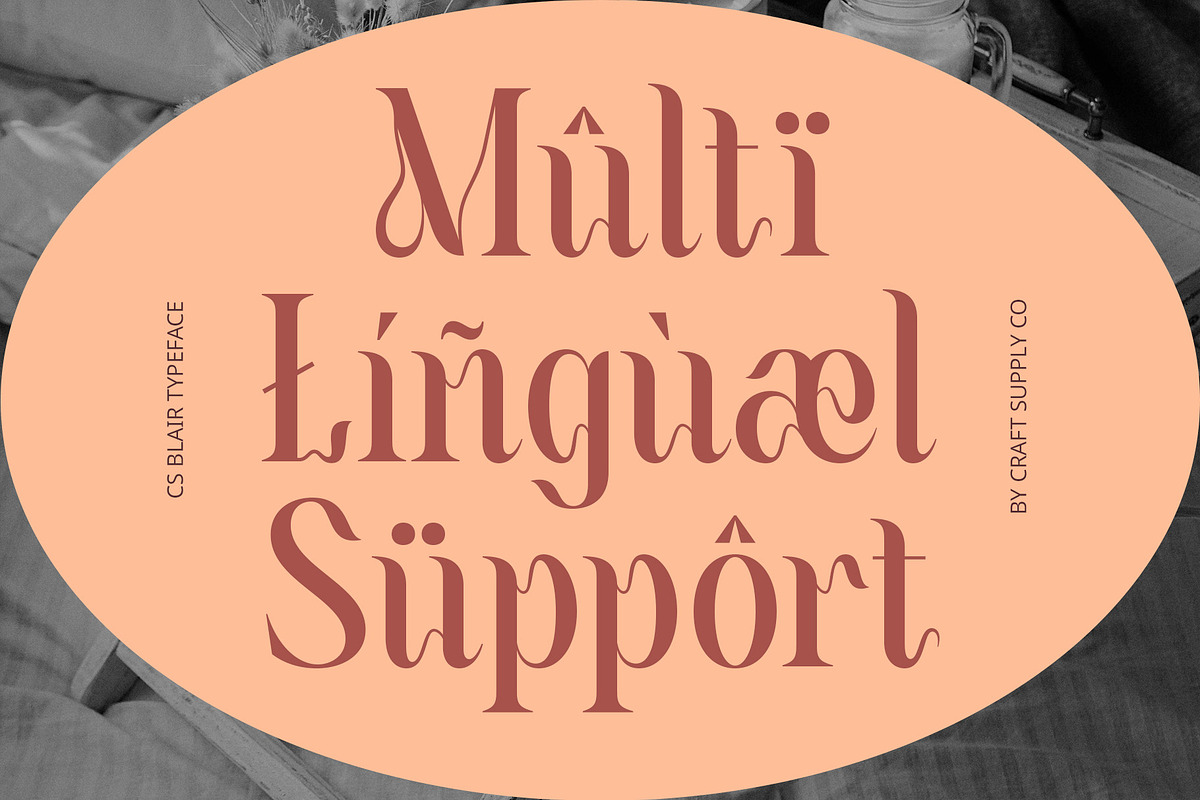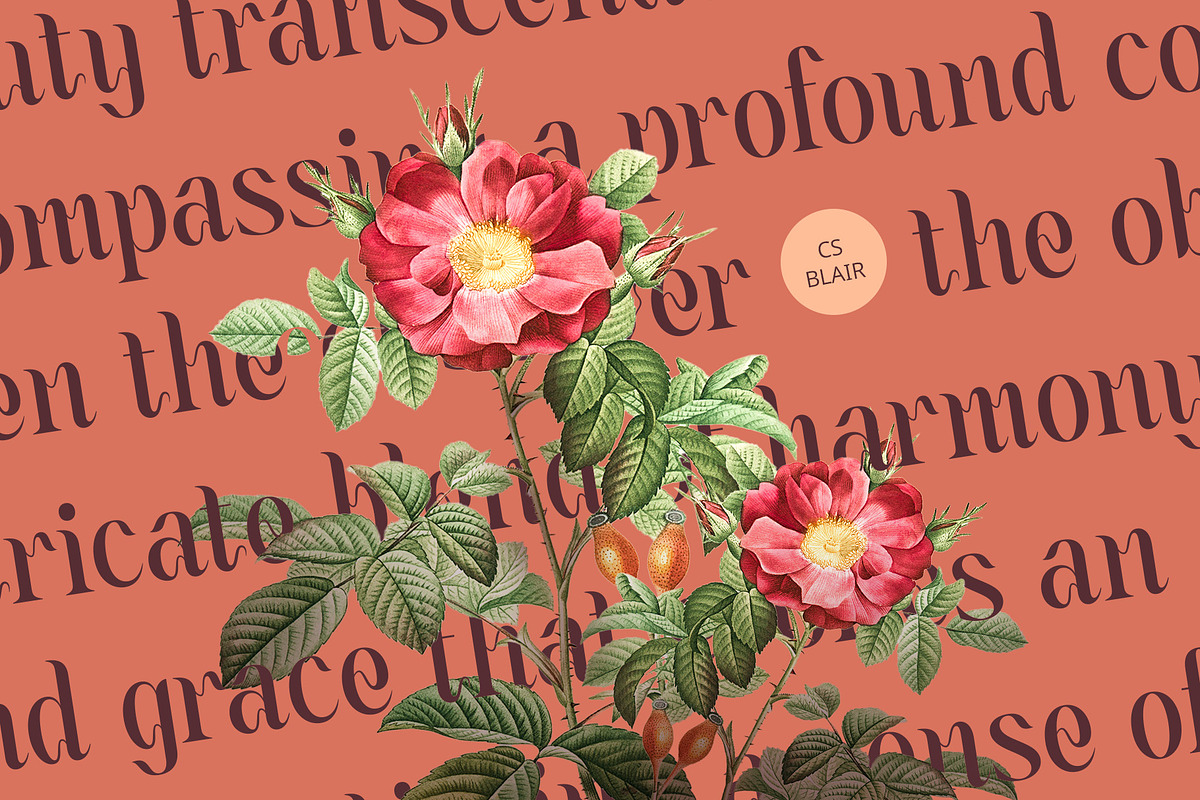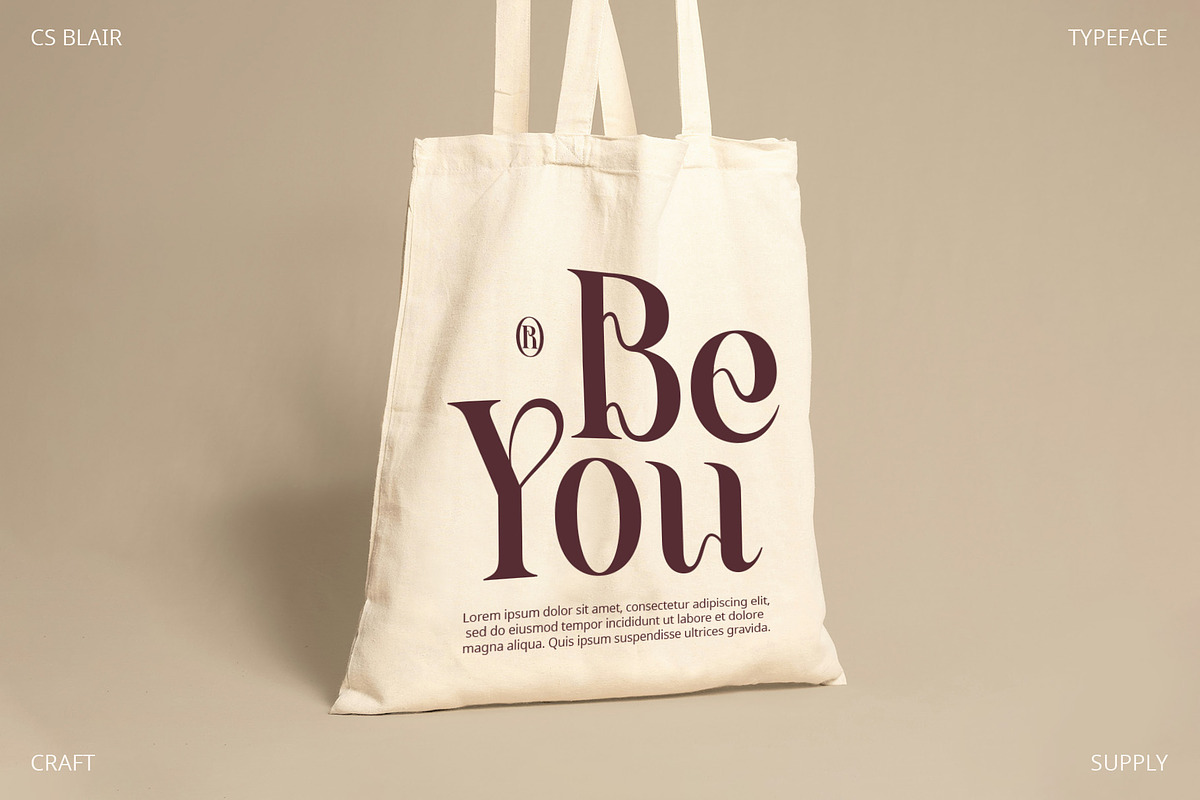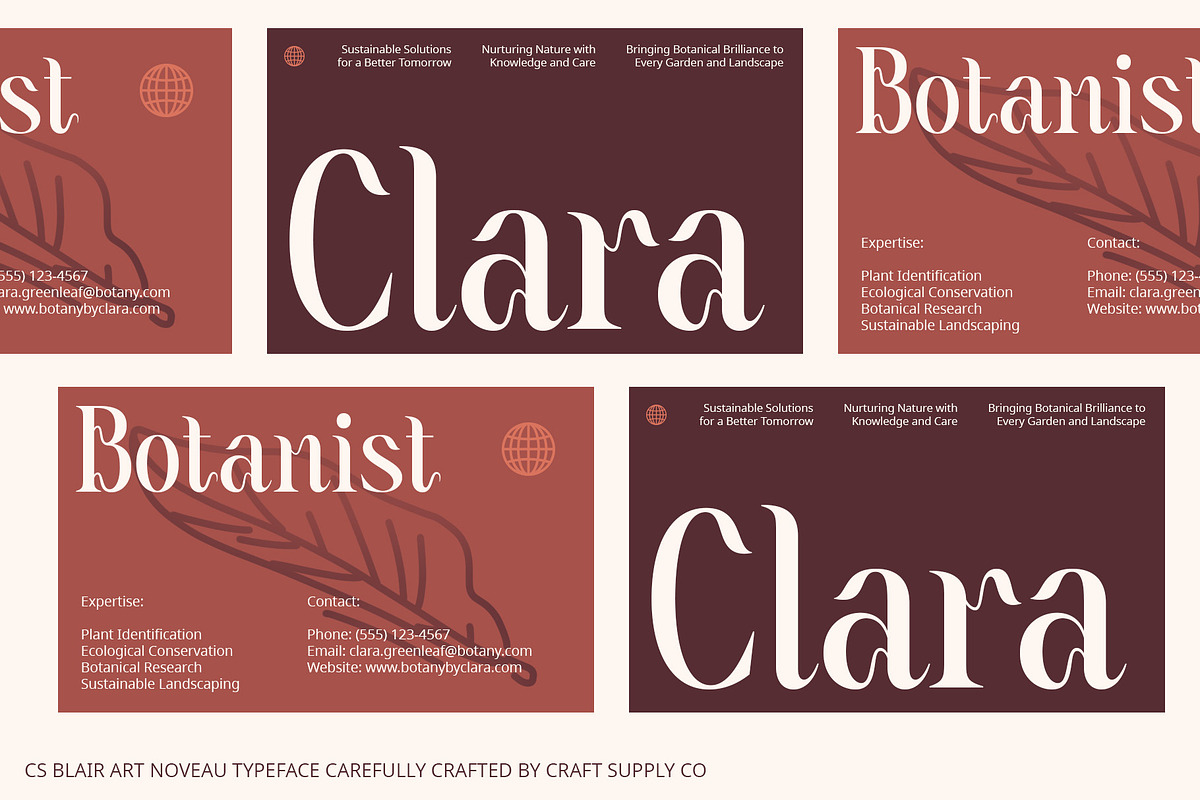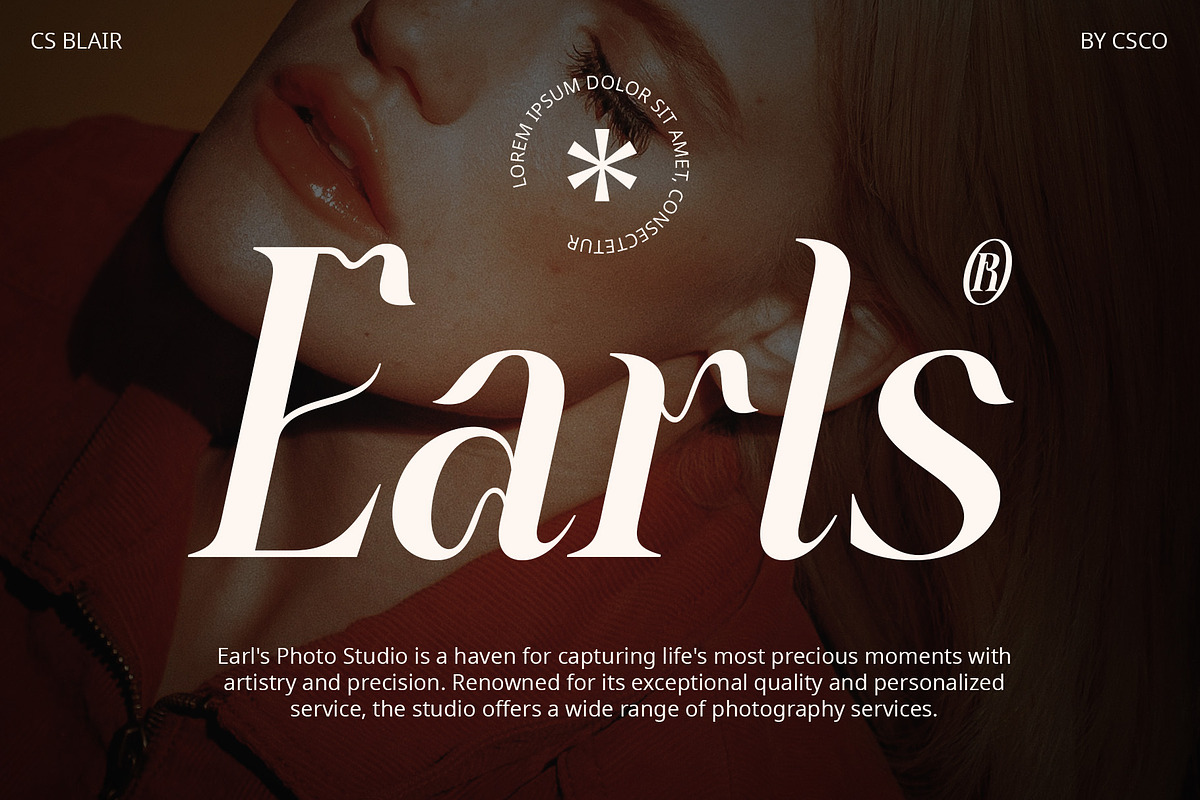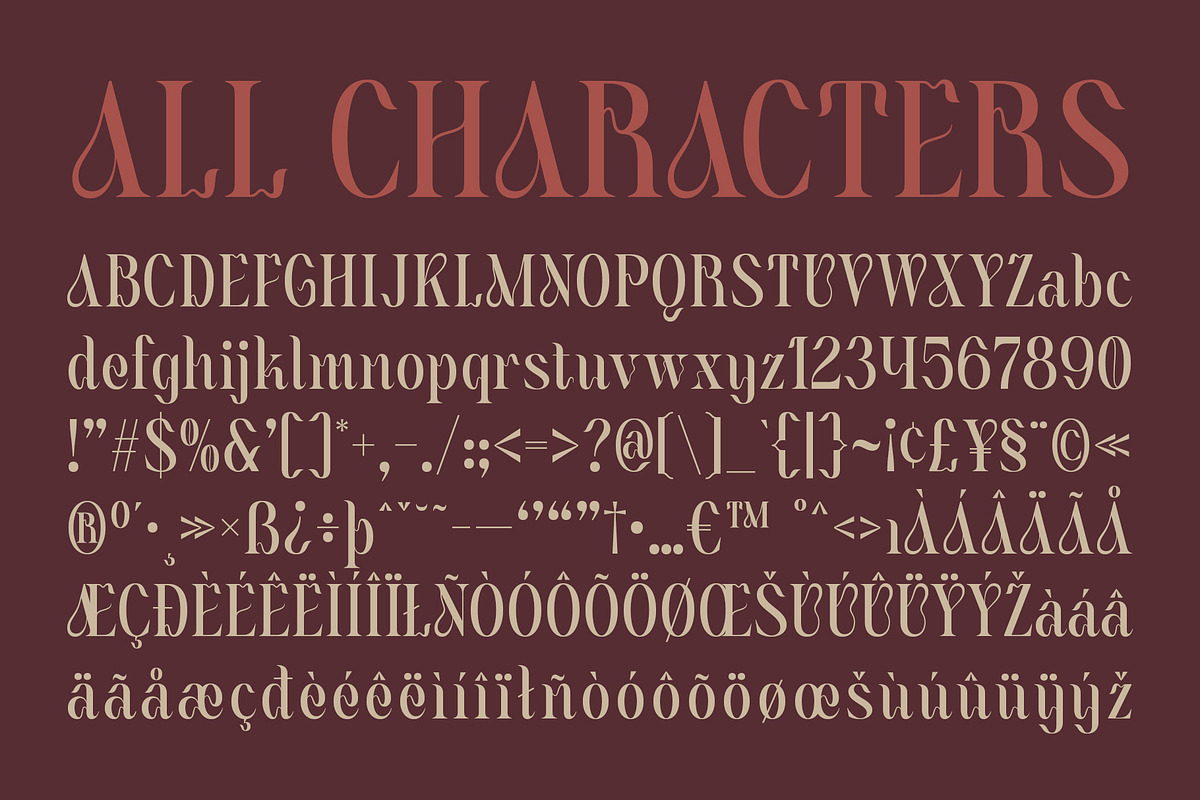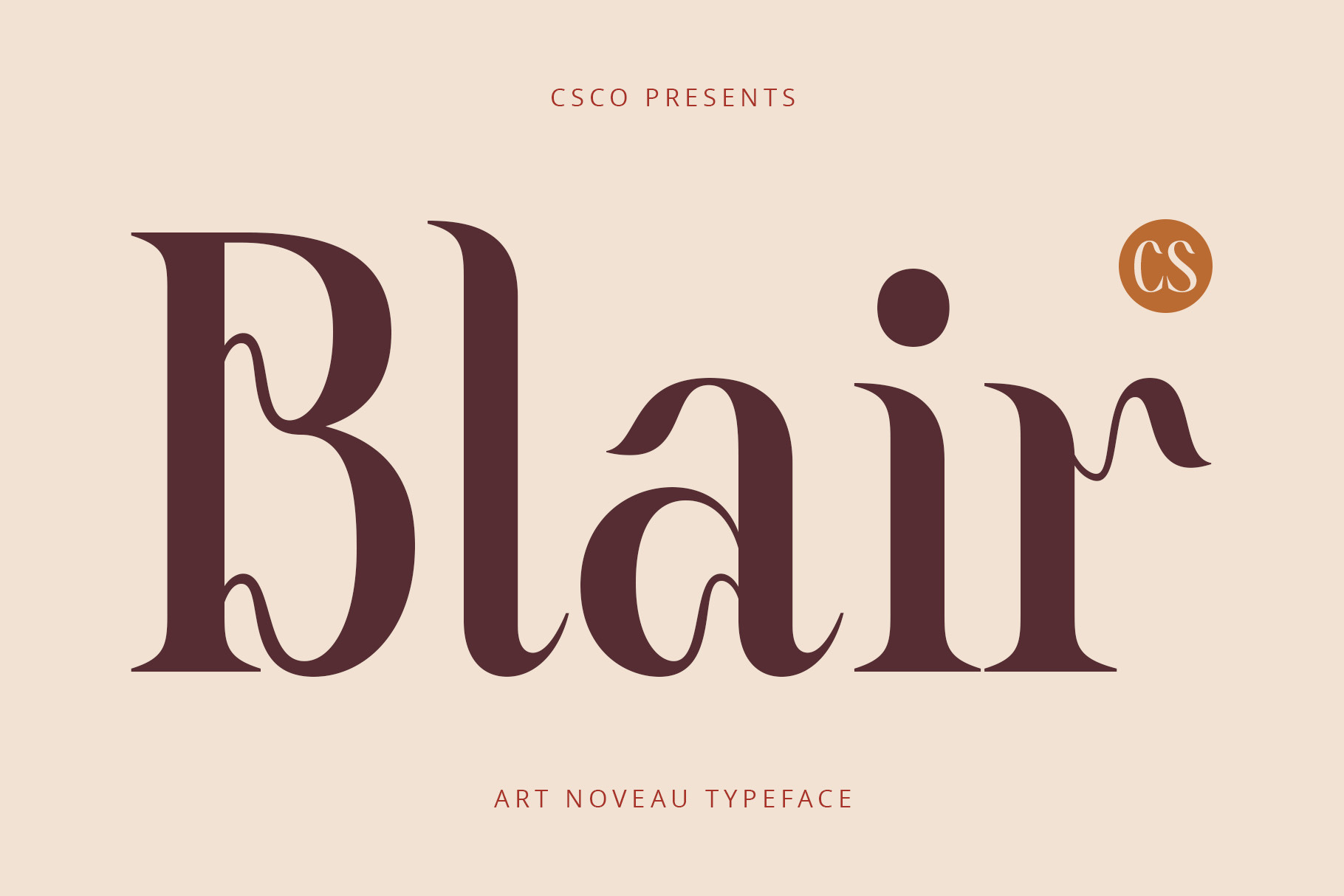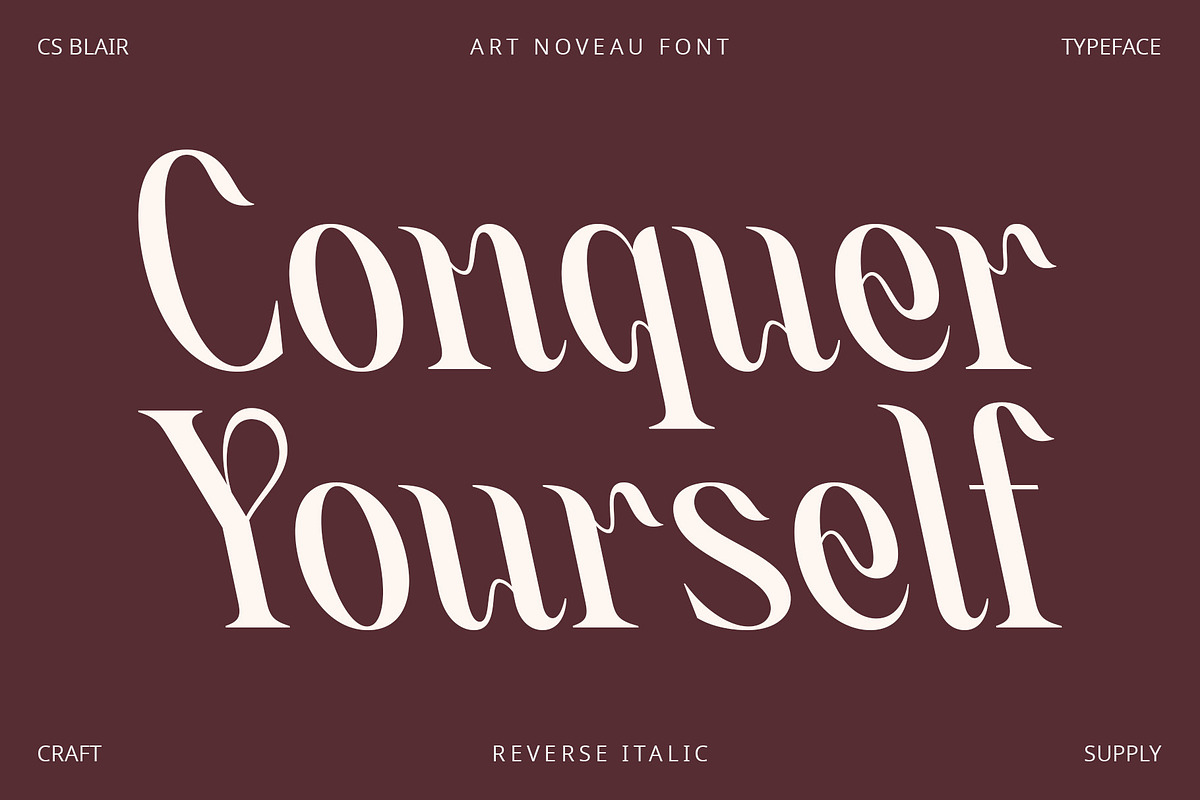
CS Blair – Art Nouveau Font
CS Blair – Art Nouveau Font: Embrace Timeless Elegance with Art Nouveau Style
Art Nouveau Serif Font
CS Blair is a sophisticated serif font that embodies the timeless beauty of Art Nouveau. With its smooth, curved lines and organic details, this font exudes an elegant impression that enhances any design project.
Timeless Classic Beauty
The smooth, flowing lines and intricate details of CS Blair offer a timeless classic beauty, perfect for designs that aim to evoke a sense of luxury and sophistication. Its Art Nouveau style brings a touch of elegance and visual appeal to every project.
Ideal for Elegant Designs
CS Blair’s artistic and luxurious design makes it suitable for a variety of applications, from luxury branding to elegant invitations and refined editorial layouts. This font adds a touch of elegance and sophistication to your work, making it perfect for high-end projects.
Versatile and Luxurious
Whether used for luxury branding, invitations, or editorial layouts, CS Blair enhances your designs with its artistic and luxurious style. Its elegant impression ensures your projects stand out with a refined and timeless beauty.
Elevate Your Designs with CS Blair
Choose CS Blair to bring a blend of timeless elegance and Art Nouveau style to your projects. This font guarantees a luxurious and captivating look, perfect for creating memorable and visually appealing designs.